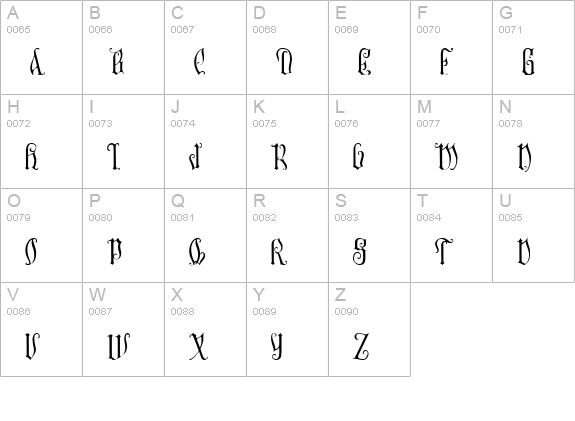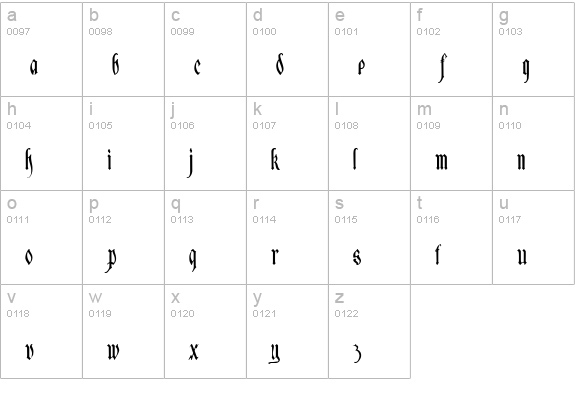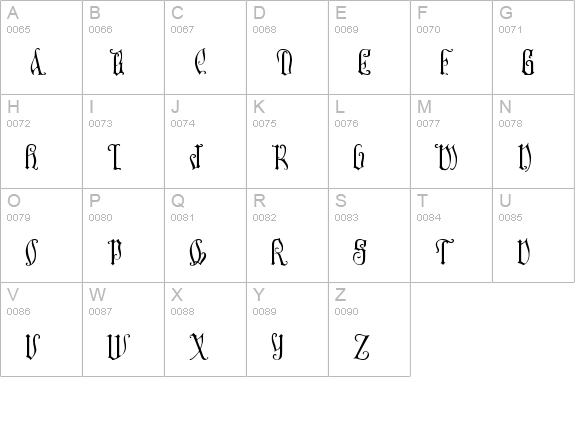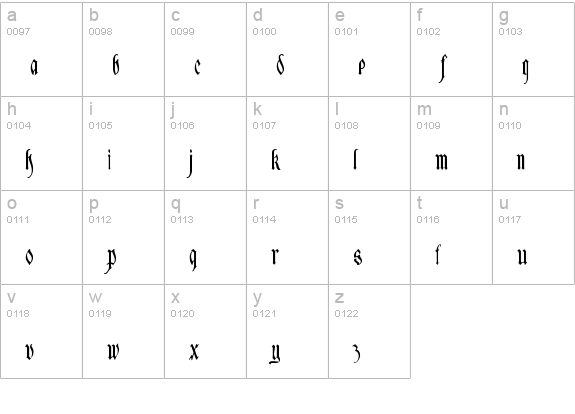
Manticore font is a beautifully crafted typeface that exudes elegance and sophistication. Its graceful curves and sharp edges make it a versatile choice for any design project, whether it's for a logo, website, or print materials. With its unique blend of modern and classic elements, Manticore font captures attention and adds a touch of professionalism to any design. Its clean lines and balanced proportions make it easy to read, ensuring that your message is conveyed with clarity and style. But what sets Manticore font apart from other typefaces is that it is free. That's right, this stunning font is freely available to download at FontsMarket.com. So whether you're a professional designer on a tight budget or a hobbyist looking to enhance your creations, Manticore font is the perfect choice. Designed with versatility in mind, Manticore font comes in a variety of weights and styles, allowing you to create a cohesive visual identity across different mediums. From bold headlines to delicate body text, this font has got you covered. The attention to detail in Manticore font is truly remarkable. Each letter is meticulously crafted, ensuring that every character flows seamlessly into the next. The result is a harmonious and visually pleasing typography that will captivate your audience. So why wait? Download Manticore font for free at FontsMarket.com and elevate your designs to new heights. Whether you're working on a professional project or simply exploring your creative side, this font is a must-have in your design toolkit. Embrace the beauty of Manticore font and let your imagination soar.